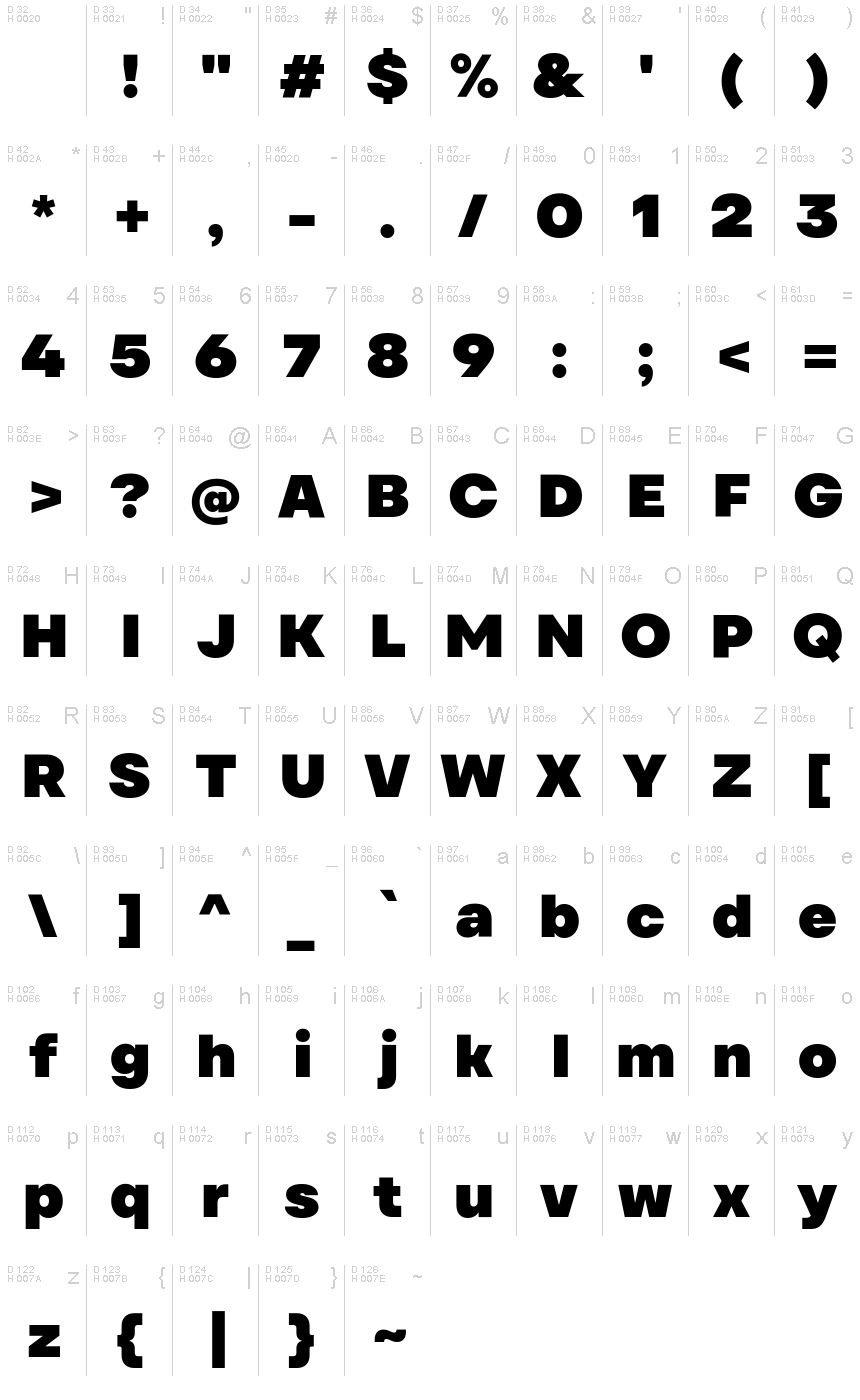
TT Firs Text Trial ExtraBlack
TT Firs Text ExtraBlack font, part of the TT Firs Text family, is a striking sans serif typeface that commands attention with its bold presence. With an unmistakable heft, this font stands out in any design context, exuding confidence and sophistication. Its robust letters showcase an engaging balance of modernity and readability, making it an ideal choice for headlines or branding that requires emphasis.
The font's visual appeal lies in its striking curves and strong lines, imparting a sense of stability and clarity. Suitable for high-impact displays, marketing materials, and editorial designs, TT Firs Text ExtraBlack seamlessly bridges style with functionality. Whether used digitally or in print, this typeface is perfect for those looking to make a bold statement while maintaining a contemporary aesthetic.